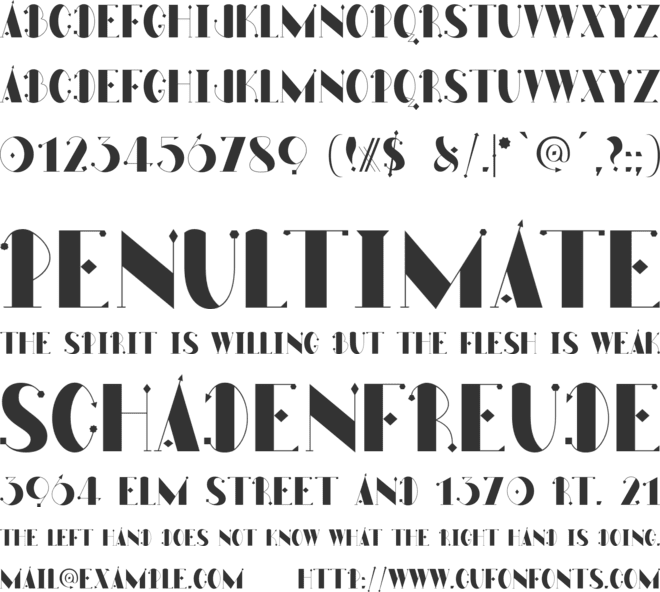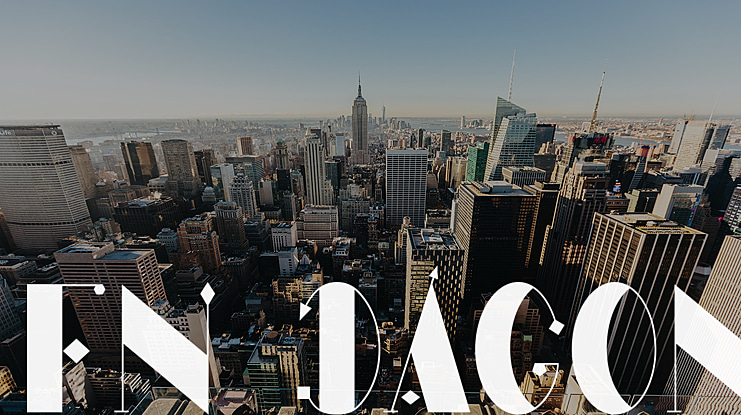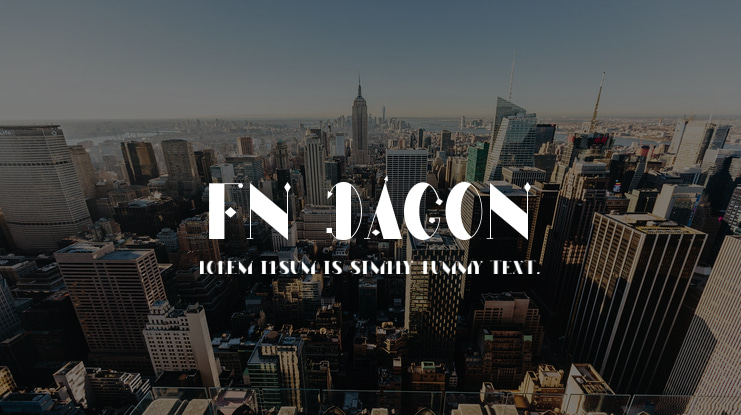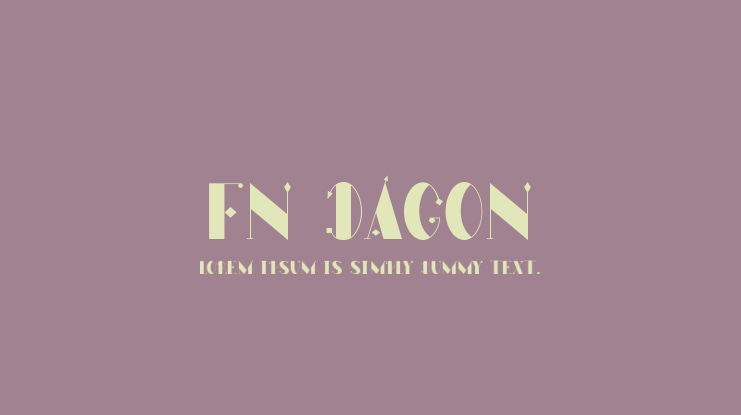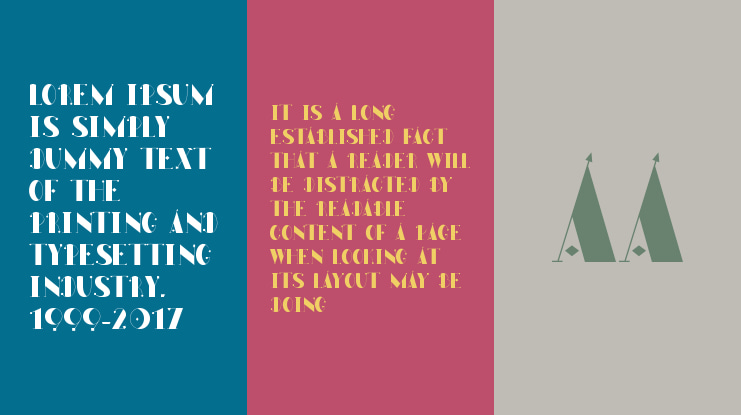
FN Dagon Font
*** FN DAGON DÉCO Designed by FN Font | Fontstyle ***
FN DAGON DÉCO is a gothic-antigua All-caps Font with a lot of ligatures. The font includes 44 ligatures, 27 alternate uppercase, full punctuation, and international language support.